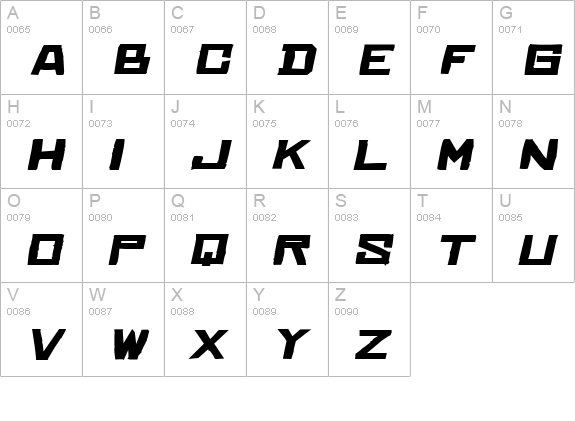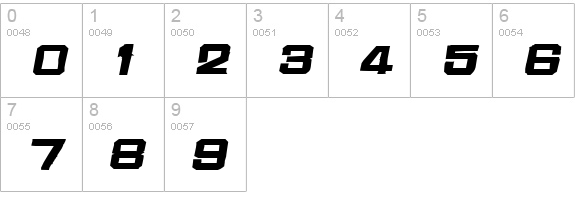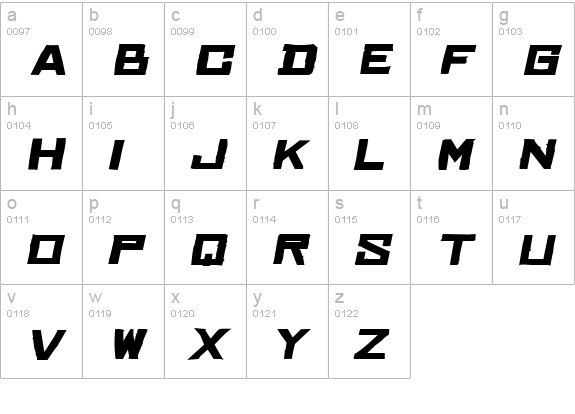
Chinese Rocks Fat Italic Font Details
Chinese Rocks Fat Italic is a distinctive, italic variant in the Chinese typeface family \xE2\x80\x94 well suited to design and typography projects.
Chinese Rocks Fat Italic is a bold and stylish font that exudes elegance and sophistication. With its unique and eye-catching design, this font is perfect for making a statement in your designs. The italic style adds a touch of flair and modernity, making it ideal for projects that require a contemporary look. Best of all, Chinese Rocks Fat Italic is available for free download at FontsMarket.com. This means you can easily access this beautiful font and use it in your personal or commercial projects without any cost. Don't miss out on the opportunity to enhance your designs with this stunning typeface. Download Chinese Rocks Fat Italic now and elevate your creations to the next level.